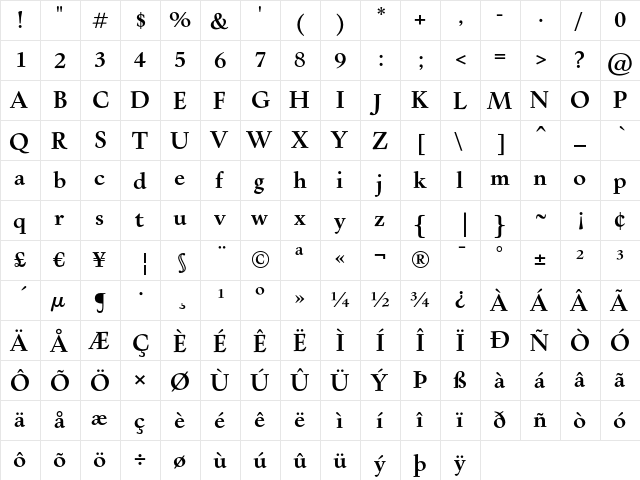
Kennedy Bold
Design Context for Kennedy Typeface
Kennedy is a composed and adaptable typeface that performs quietly and consistently across a wide range of design contexts. Its bold stroke weight gives it real presence on the page.